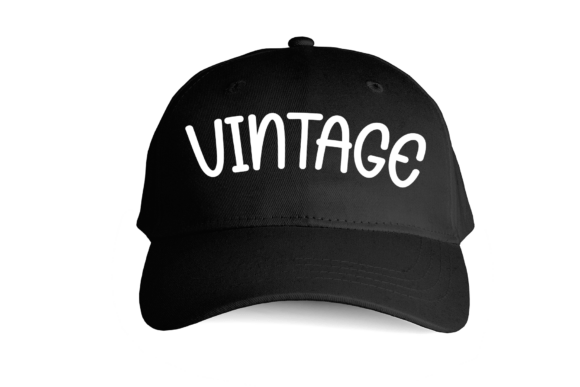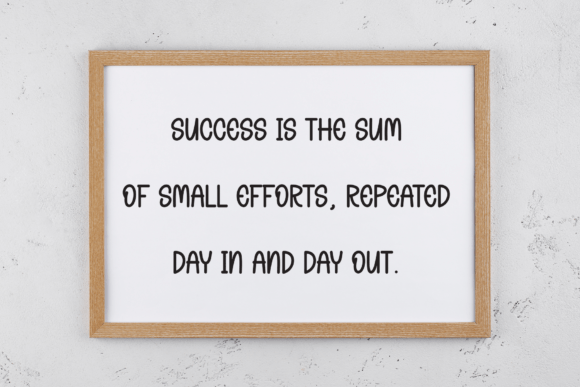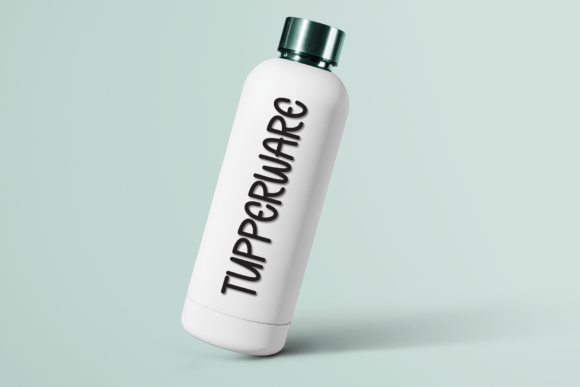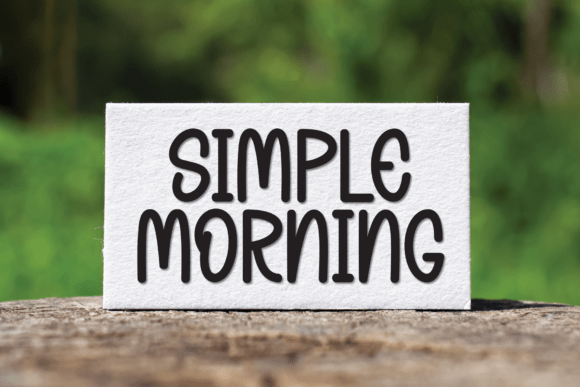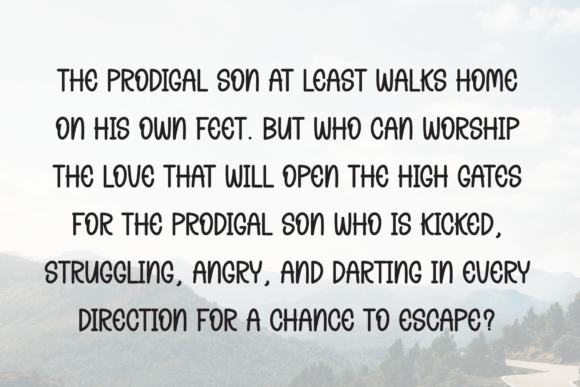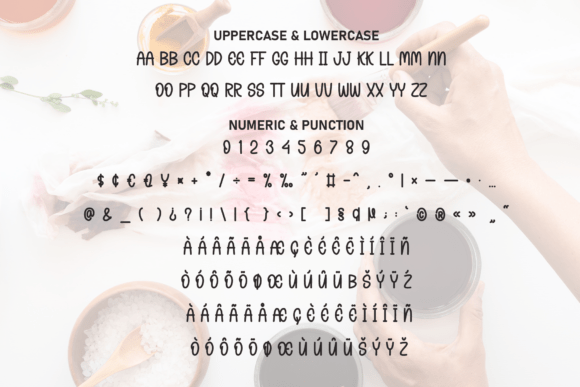
Introducing Creative Homemade: The Perfect Font for Your Design Needs
Are you tired of using the same old fonts in your designs? Do you want to add a personal touch to your branding, headlines, packaging, and digital content? Look no further than Creative Homemade, a casual and neat display font that’s sure to elevate your designs to the next level.
What is Creative Homemade?
Creative Homemade is a unique and versatile font that combines simplicity with a friendly, approachable vibe. Its clean lines, balanced letterforms, and subtle rounded edges make it the perfect choice for designers and crafters looking for a modern handwritten typography with a polished finish.
Key Features of Creative Homemade
- Clean Lines: Creative Homemade features clean lines that give it a crisp and modern look.
- Balanced Letterforms: The font’s balanced letterforms ensure that each letter is proportionate and visually appealing.
- Subtle Rounded Edges: The subtle rounded edges add a touch of warmth and friendliness to the font.
- Versatile Style: Creative Homemade is versatile and can be used for a variety of design needs, including branding, headlines, packaging, and digital content.
Why Choose Creative Homemade?
So, why should you choose Creative Homemade for your design needs? Here are just a few reasons:
- Warm and Inviting: Creative Homemade adds a warm and inviting touch to any design, making it perfect for brands that want to connect with their audience on a personal level.
- Clarity and Charm: The font delivers clarity and charm in equal measure, making it perfect for designs that need to communicate a message clearly and effectively.
How to Use Creative Homemade
Using Creative Homemade is easy. Here are a few ways you can use the font in your designs:
- Branding: Use Creative Homemade to create a unique and memorable brand identity that sets you apart from the competition.
- Headlines: Use the font to create eye-catching headlines that grab attention and communicate your message clearly.
- Packaging: Use Creative Homemade to add a personal touch to your packaging and make your products stand out on store shelves.
- Digital Content: Use the font to create engaging and visually appealing digital content, such as blog posts, social media graphics, and email newsletters.
Tips for Pairing Creative Homemade with Other Fonts
Pairing Creative Homemade with other fonts can add depth and interest to your designs. Here are a few tips for pairing the font with other fonts:
- Use a Serif Font: Pairing Creative Homemade with a serif font can add a touch of sophistication and elegance to your designs.
- Use a Script Font: Pairing the font with a script font can add a touch of whimsy and playfulness to your designs.
- Use a Sans-Serif Font: Pairing Creative Homemade with a sans-serif font can create a clean and modern look that’s perfect for digital content.
Creative Homemade is a versatile and charming font that’s perfect for designers and crafters looking to add a personal touch to their designs. With its clean lines, balanced letterforms, and subtle rounded edges, it’s the perfect choice for branding, headlines, packaging, and digital content. So why not give Creative Homemade a try and see how it can elevate your designs to the next level?